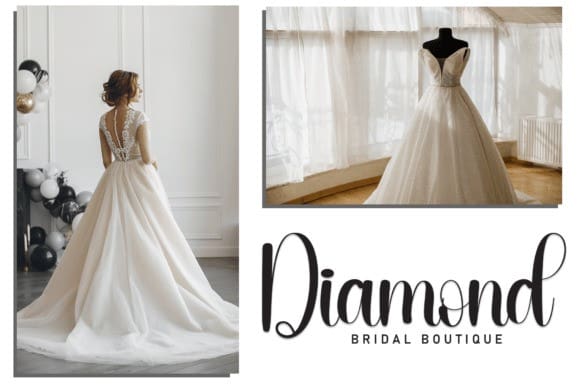
Intelligent Script Font
Intelligent Script Font, is a sweet and friendly handwritten font. Fresh and cute, this font is ideal for writing wedding invitations, cards, or any other design that might need a fun touch!